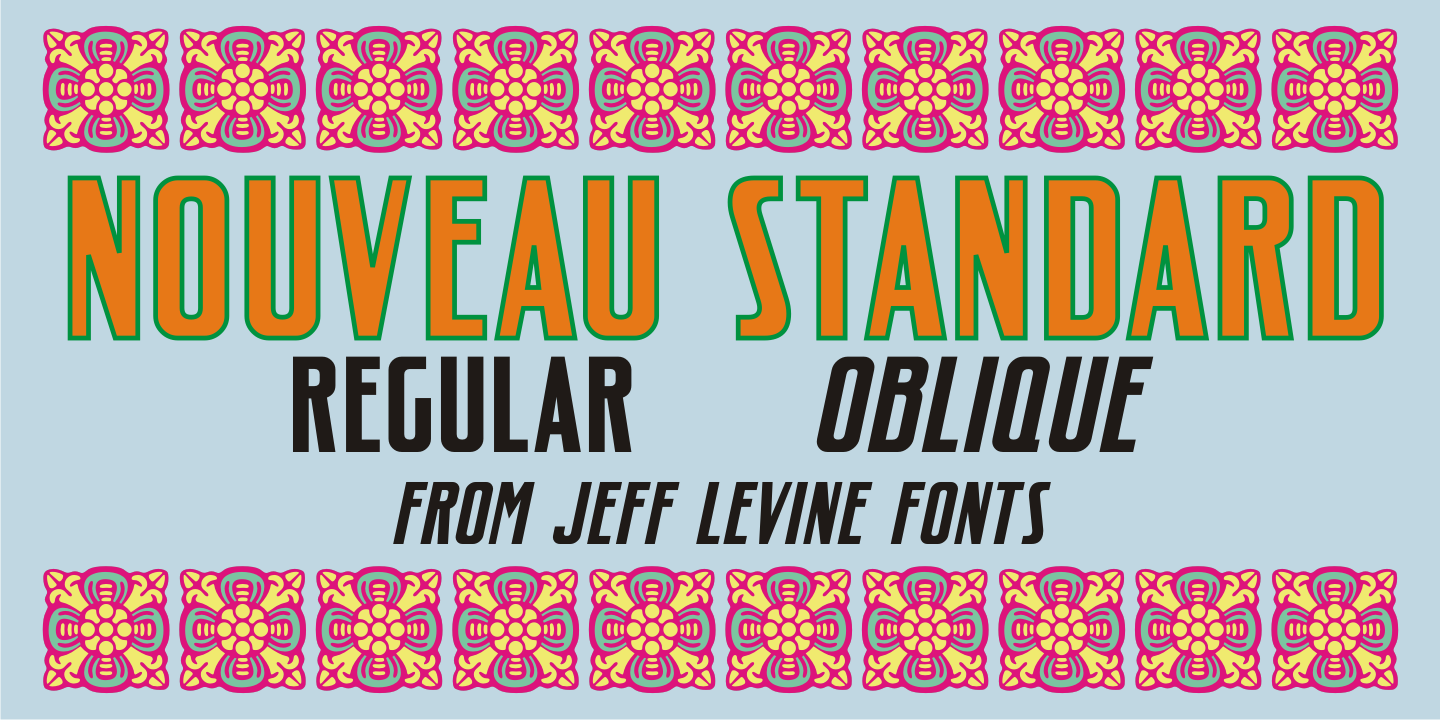
Nouveau Standard JNL Font is an exceptional choice for projects that aim to blend the classic elegance of the Art Nouveau period with a more straightforward, legible structure, making it highly versatile for modern applications. It's perfectly suited for vintage-inspired branding, refined editorial designs, event invitations, elegant packaging, and any design where you want to evoke a sense of historical artistry with a contemporary readability. Imagine it gracing a sophisticated restaurant menu, adding an authentic period feel to a museum exhibit, or giving a distinctive, timeless charm to a boutique's signage. Its clean yet subtly decorative forms ensure your message is conveyed with both artistic beauty and undeniable clarity.
What makes Nouveau Standard JNL Font so exciting is its remarkable ability to distil the essence of Art Nouveau into a highly functional and accessible typeface. It captures the spirit of a beloved historical design movement without sacrificing legibility, making it ideal for a wider range of design contexts than more ornate alternatives. This font isn't just about displaying text; it’s about creating an atmosphere, adding a layer of historical sophistication and artistic elegance to your visuals in a way that is both beautiful and practical. It's the ideal tool for designers looking to infuse their work with a unique historical context or a strong, refined aesthetic.
The Nouveau Standard JNL Font family typically focuses on delivering its signature Art Nouveau-inspired style with precision, often offering a balance between decorative elements and readability. You might find a standard Regular weight that embodies its core elegant design, along with potential variations that enhance its visual appeal or offer slight stylistic alterations for specific characters. These nuances ensure that Nouveau Standard JNL Font Free Download can be the cornerstone of a truly unique and powerfully thematic visual identity, helping your designs stand out with an undeniable sense of character and timeless artistic heritage.